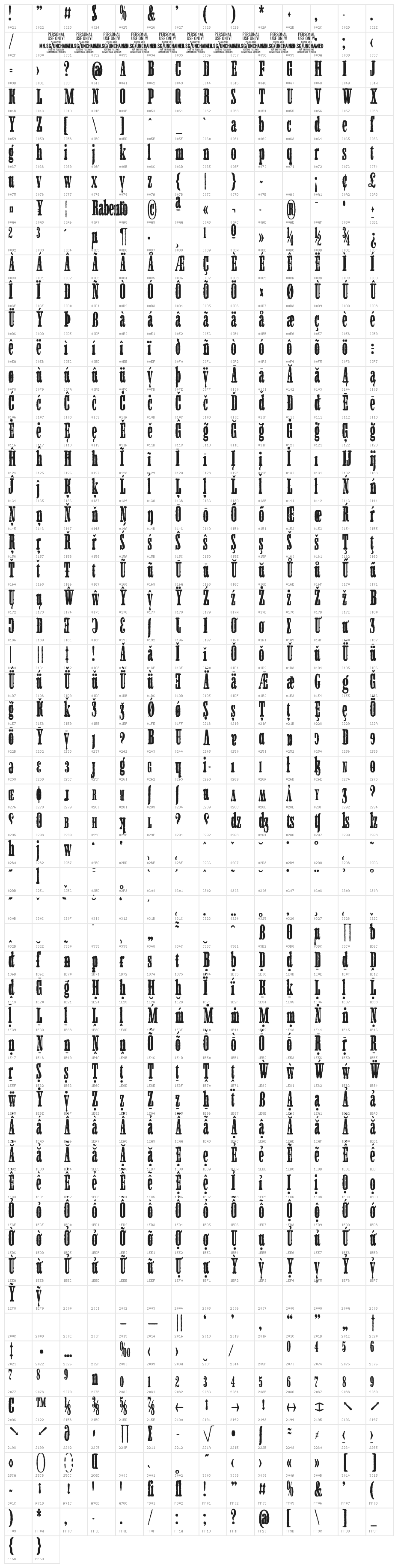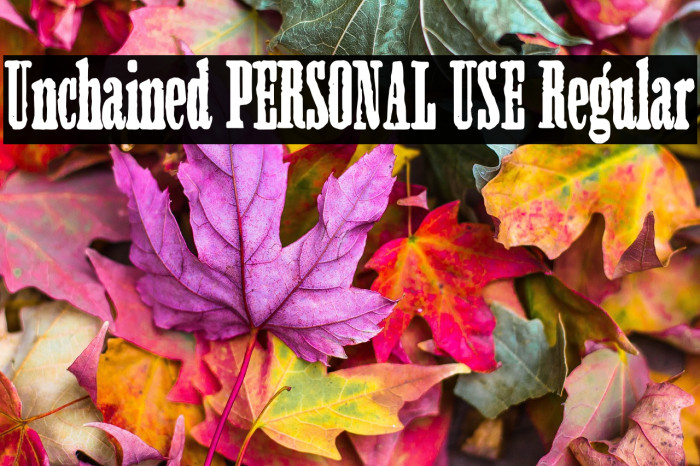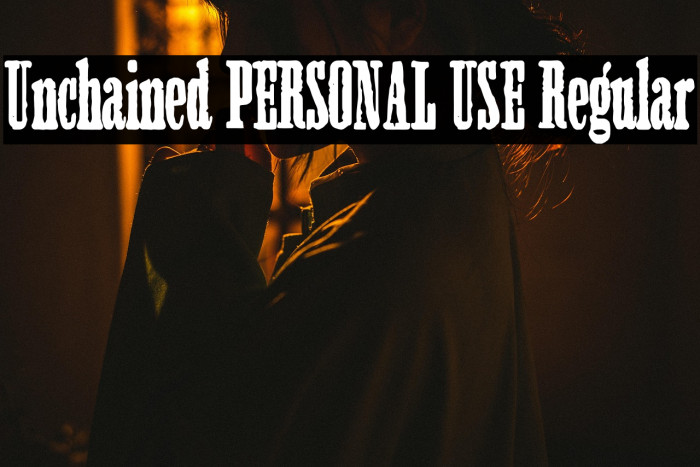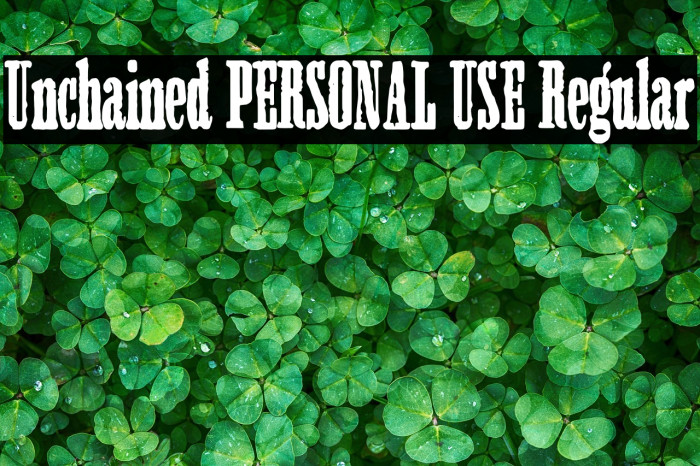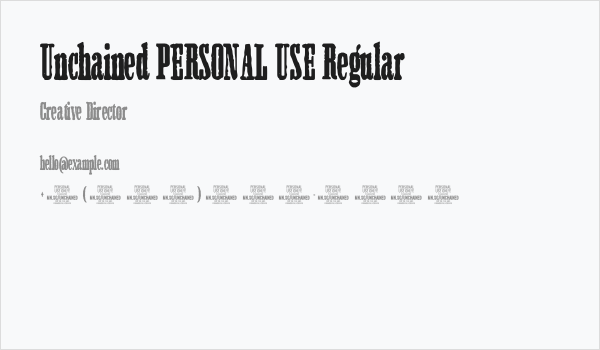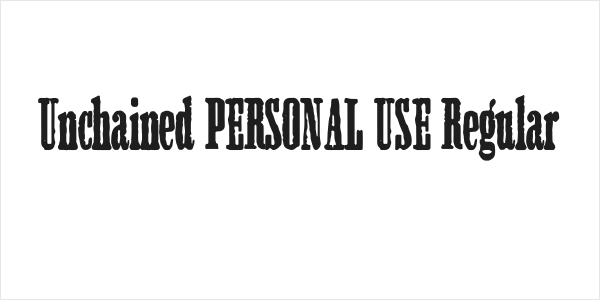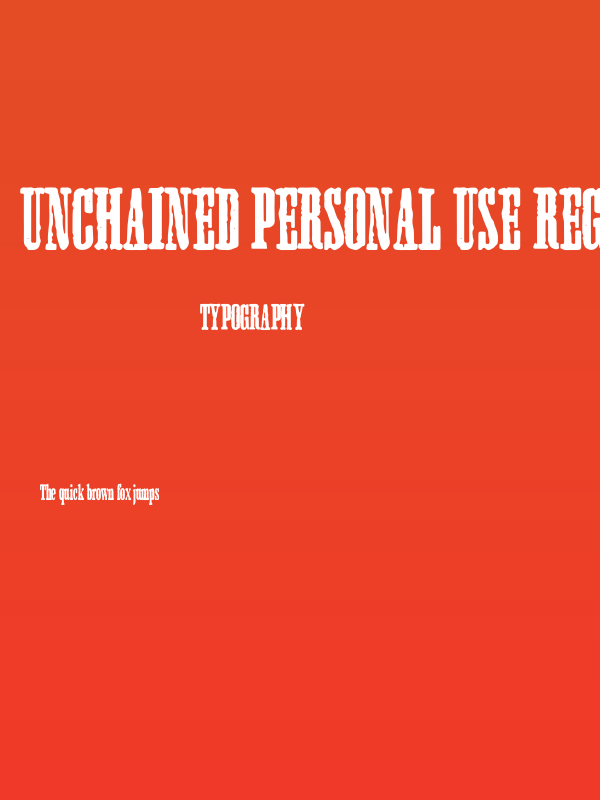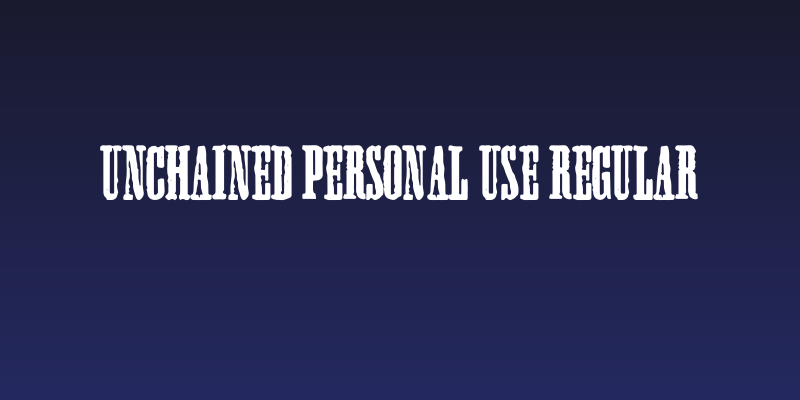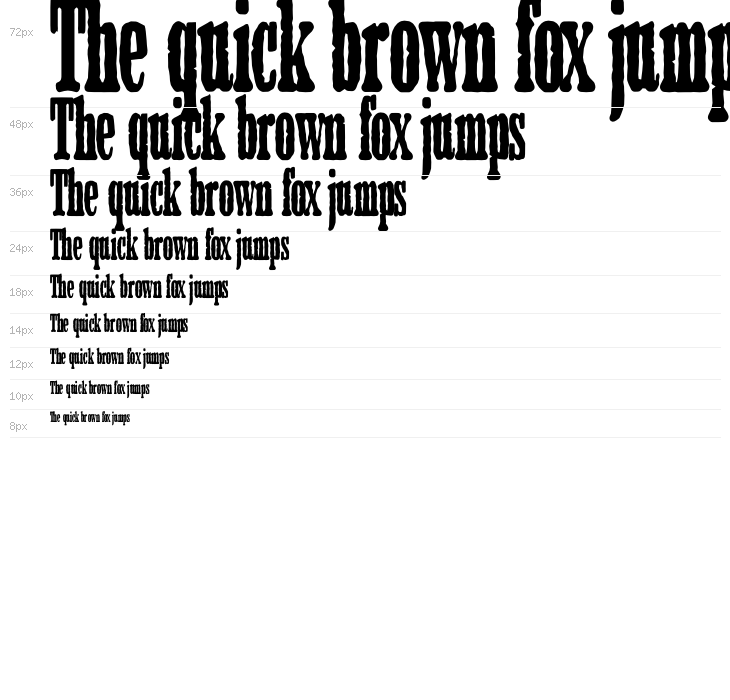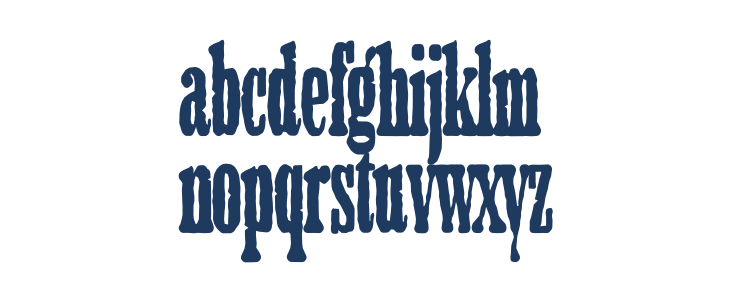
Unchained PERSONAL USE Regular Font
Unchained PERSONAL USE Regular Description
This font features a bold and rugged design with a distinctly vintage feel. The characters are heavily weighted with thick strokes and a slightly distressed texture, giving them a worn and weathered appearance. The uppercase letters are tall and imposing, while the lowercase letters maintain a consistent style that complements the overall aesthetic. The numerals and special characters follow the same design principles, ensuring a cohesive look across all glyphs. This font's unique style makes it ideal for projects that require a strong, impactful visual presence.
Overall StyleVintage
Proposed ProjectsIdeal for posters, branding, album covers, and any design needing a strong, vintage impact.